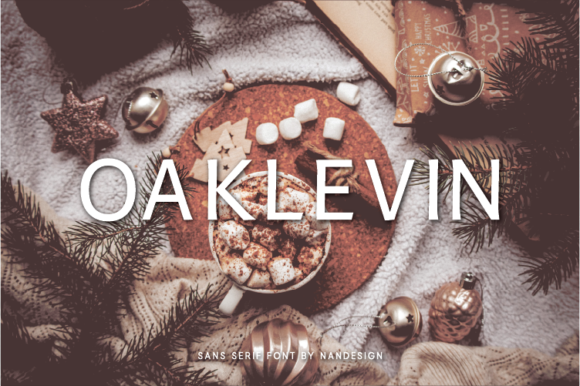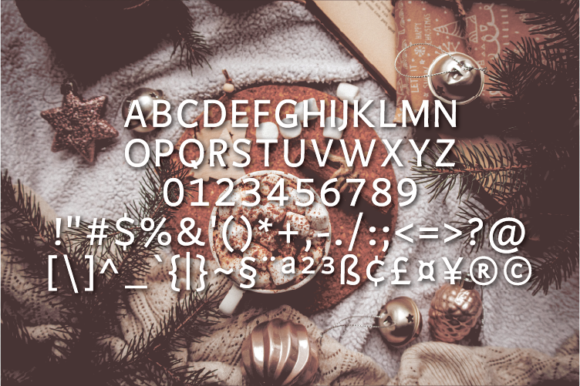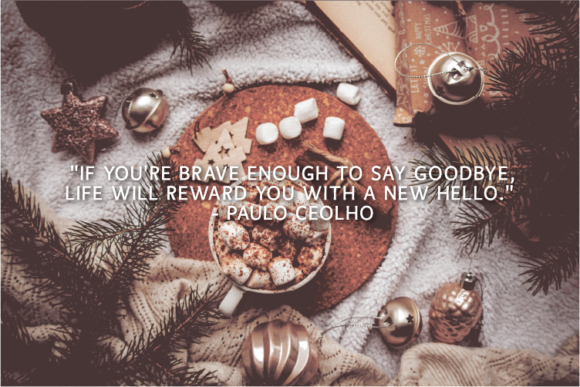
Oaklevin
About Oaklevin Font
Oaklevin is an authentic and simple lettered sans serif font. It can easily be matched to an incredibly large set of projects, so add it to your creative ideas and notice how it makes them stand out! It looks great on displays, headers, invitations, save the dates, weddings, and so much more!